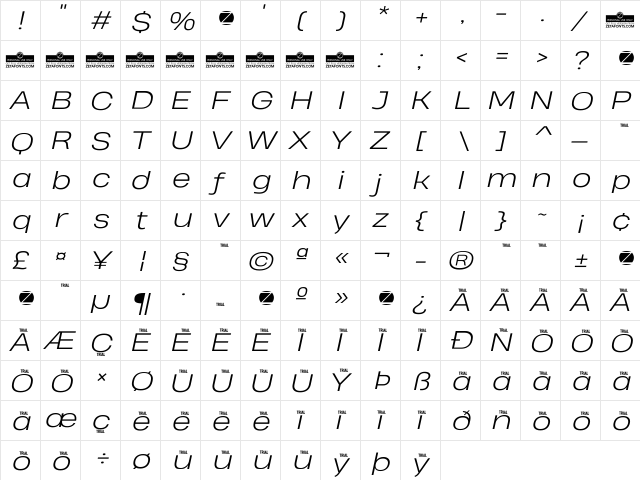
Heading Pro Wide Trial Light Italic Font Preview
| Foundry | Studio Kmzero & Zetafonts |
| Designer | Francesco Canovaro |
Design Context for Heading Pro Wide Trial Typeface
Heading Pro Wide Trial is a composed and adaptable typeface that performs quietly and consistently across a wide range of design contexts. The dynamic lean of this cut emphasises speed and emphasis in any layout. Its slender proportions lend an understated elegance to any composition.